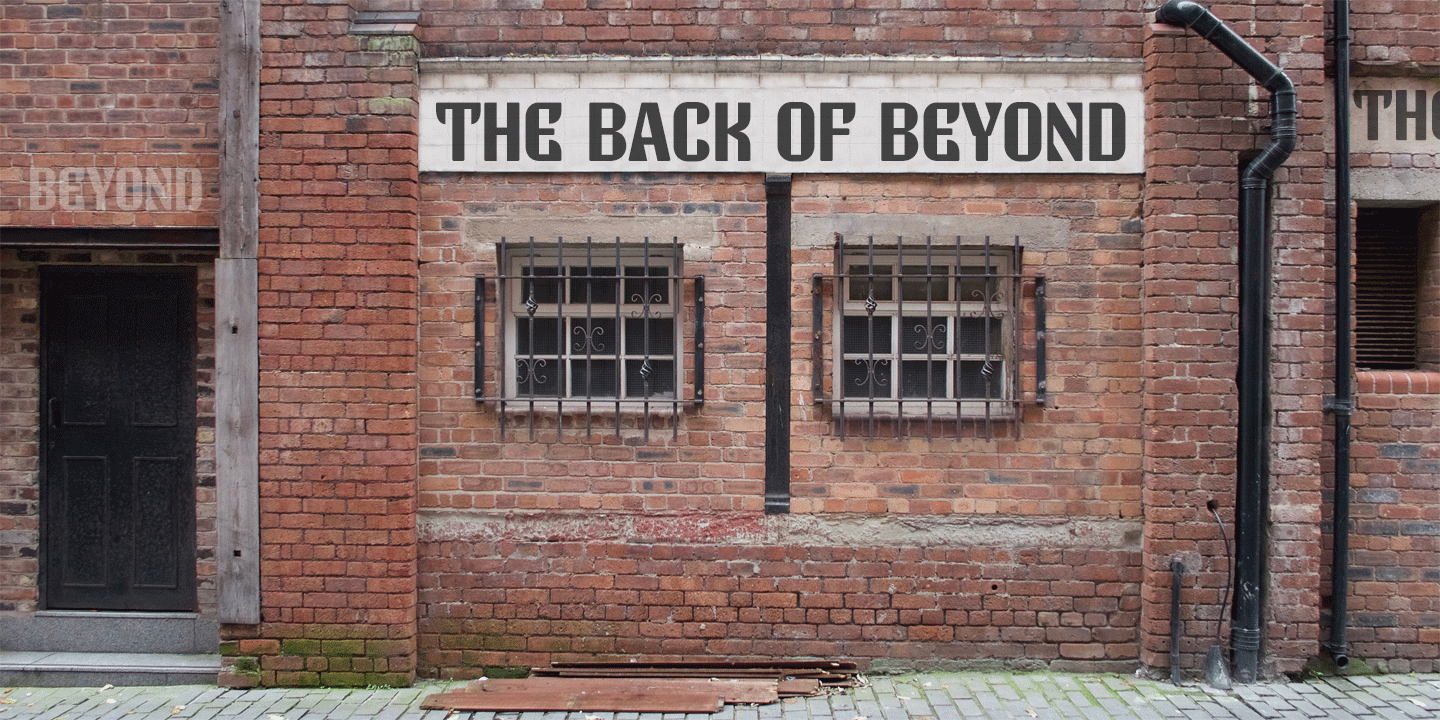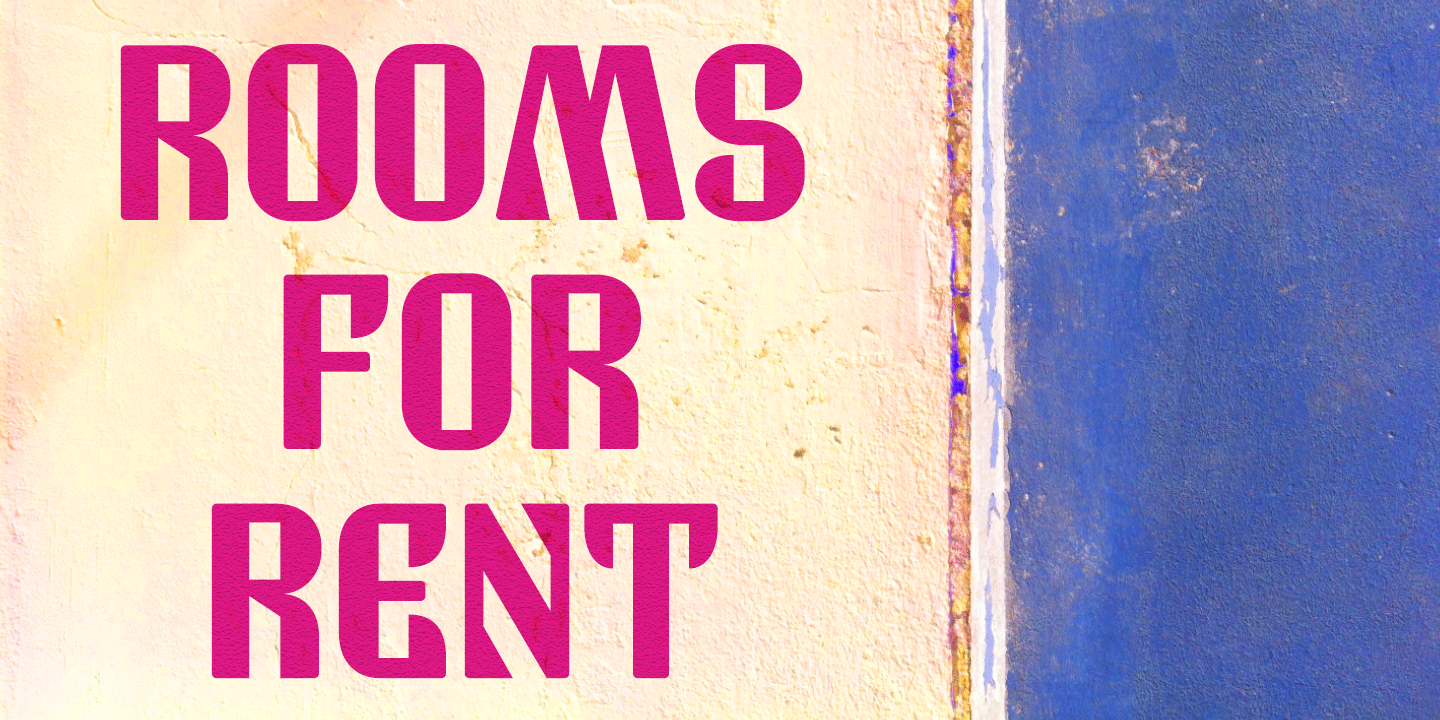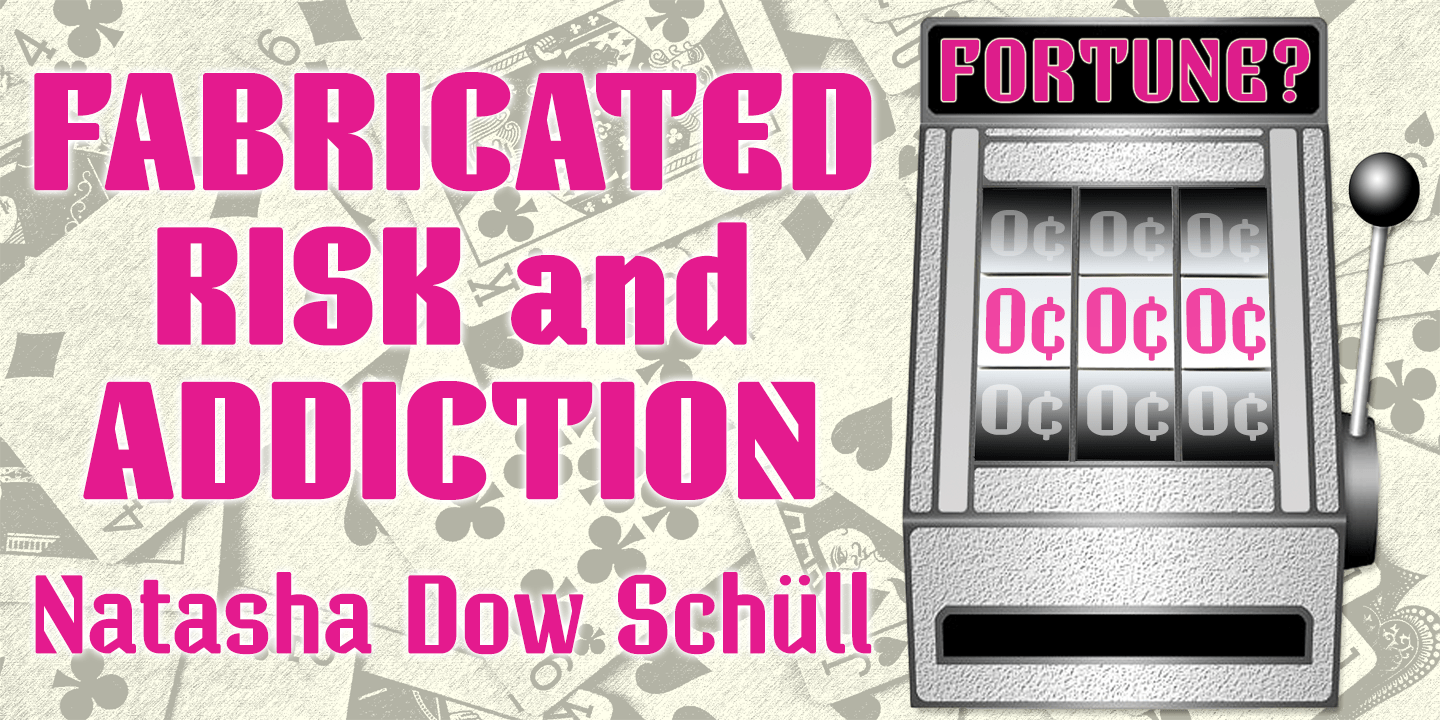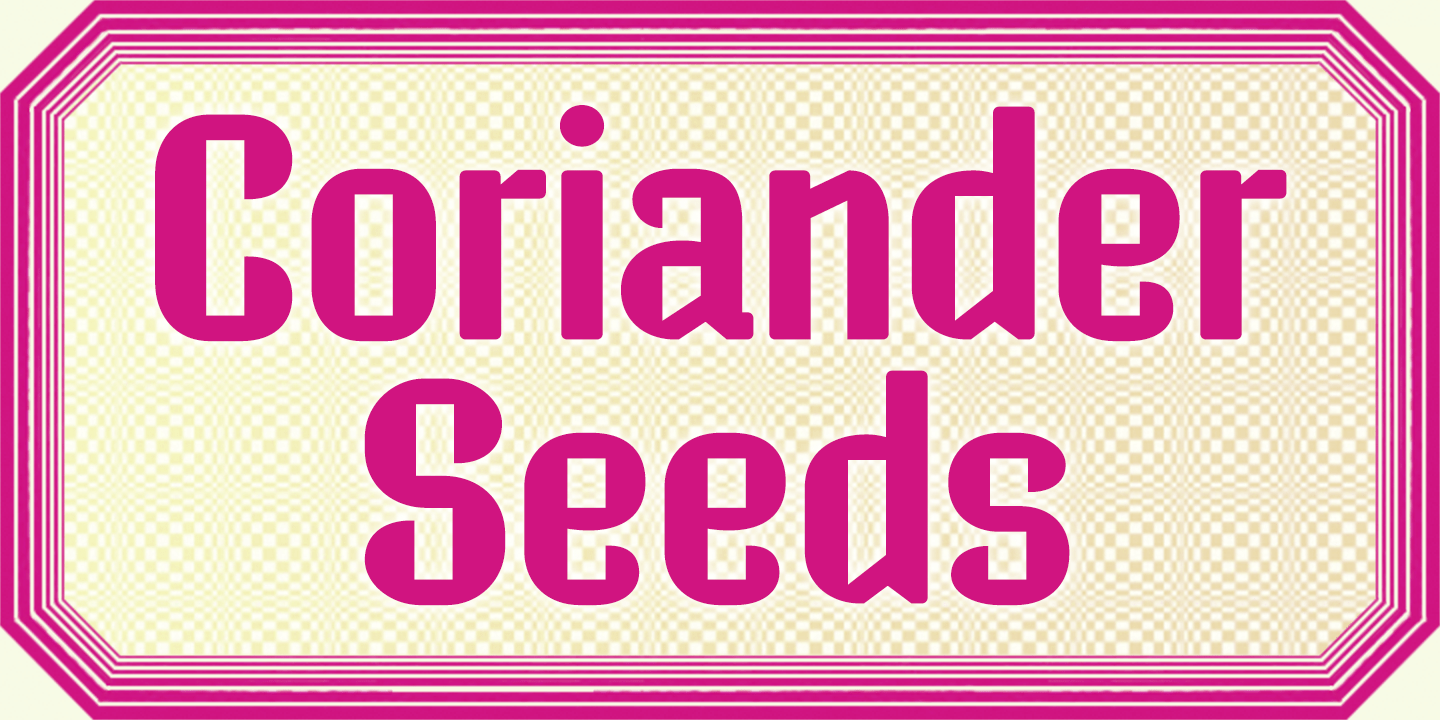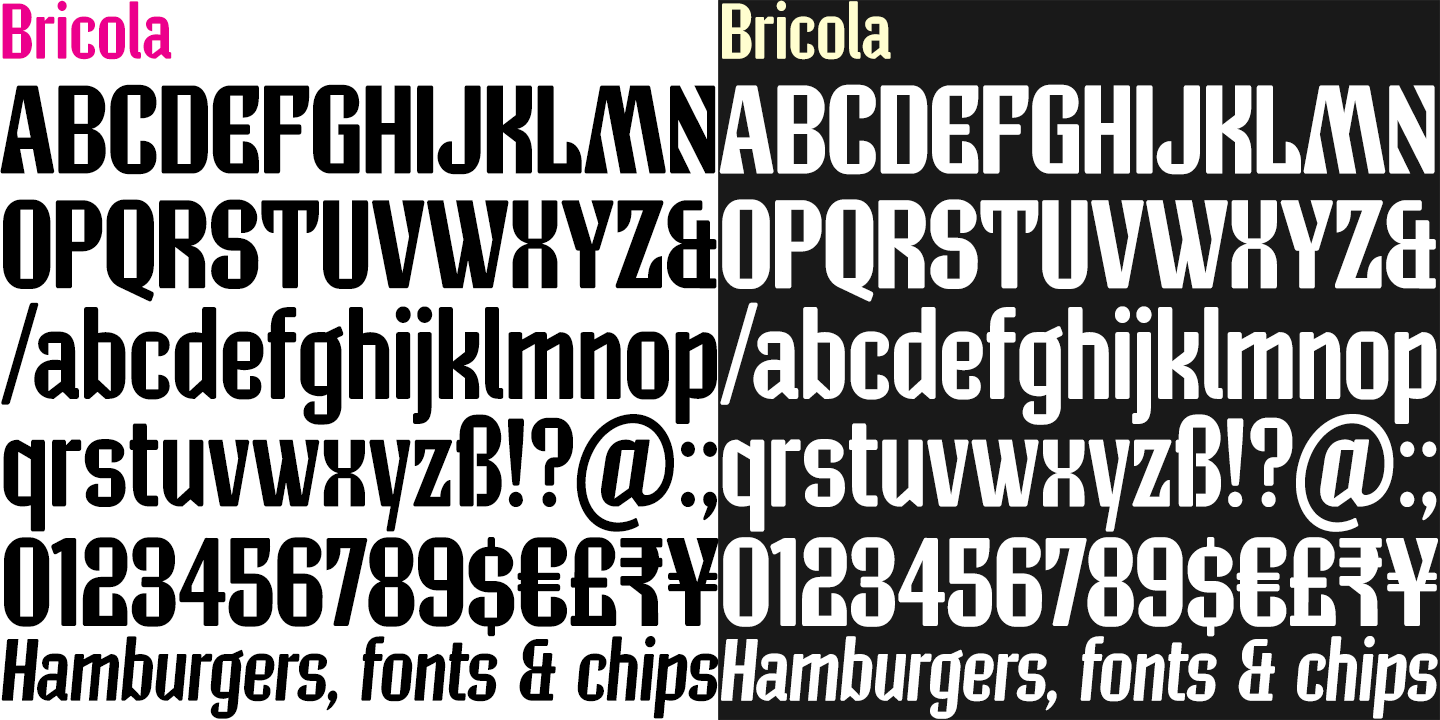
Bricola (rhymes with Nicola) is a condensed display face that contrasts soft curved outlines with sharp cuts and counters. Sturdy and idiosyncratic, Bricola is an eye-catching blend of functional and funky, appropriate for headlines, labels and branding.…